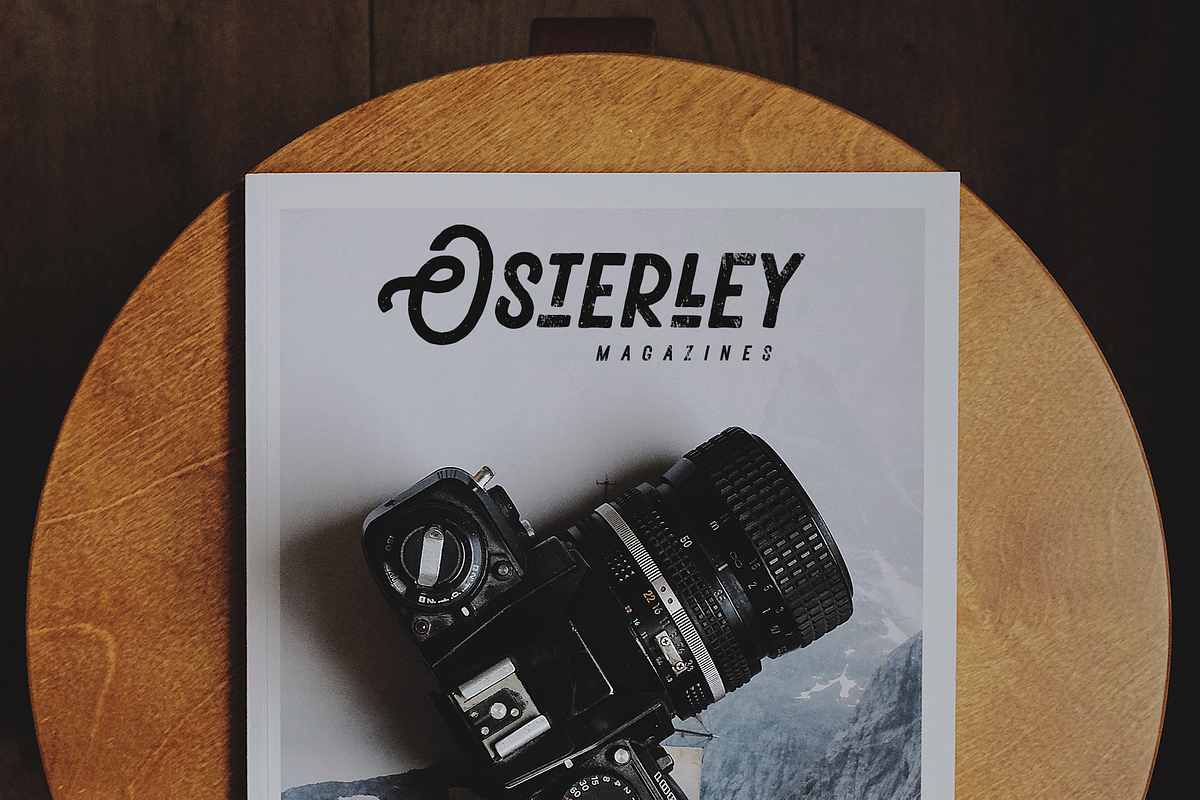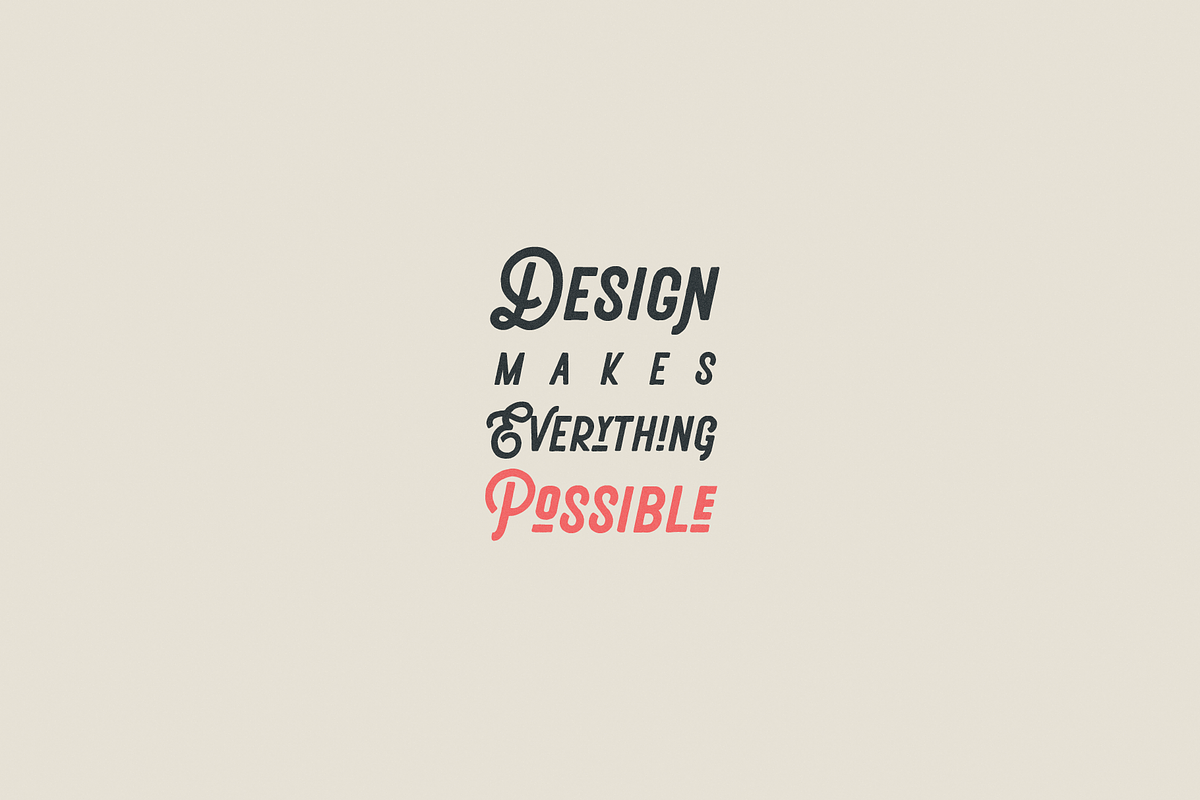
Deltras
Deltras is handmade modern vintage display typefaces, which is combining the style of classic typography with an modern handlettering style. The font have smooth edges to make vintage printing, so it will bring a handdrawn classic look feels. It easily cooperating together and perfect for creating the traditional style logos, labels, package design, lettering for t-shirts and much others.
There are more than 355 glyphs in the font including Stylistic sets, Contextual Alternates etc. OpenType features with Stylistic Alternates, Contextual Alternate in some characters that allows you to mix and match pairs of letters to fit your design.
- Character Set A-Z
- Stylistic alternates